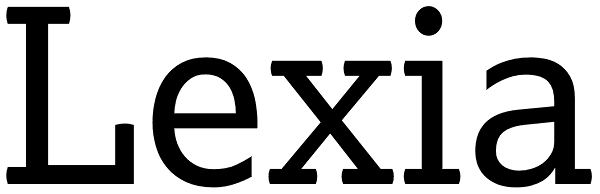
Lexia
Whether as body copy or display text, the Lexia font family’s extended range of weights makes it remarkably versatile. It is a contemporary slab-serif font family, drawing its strength from the traditional typographic values of harmonious...